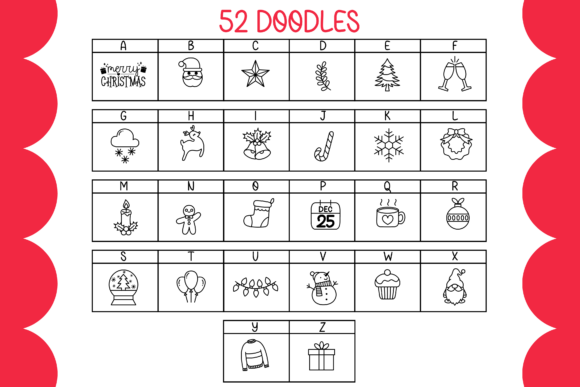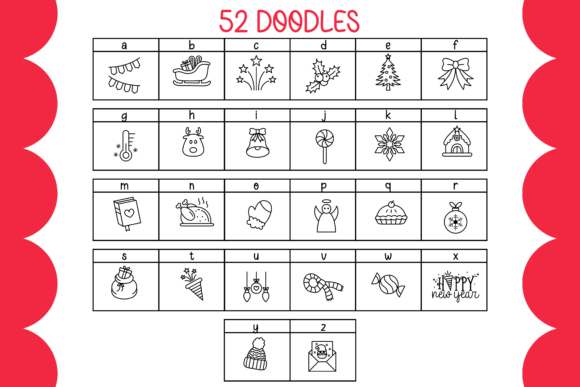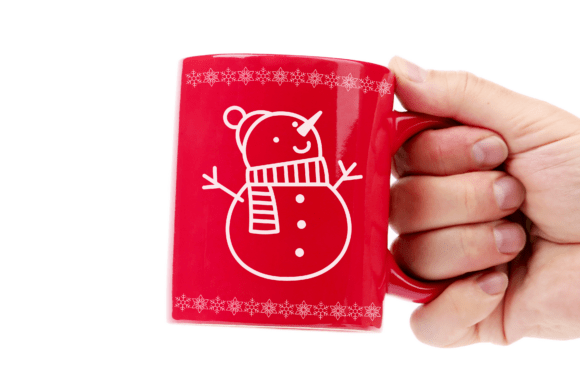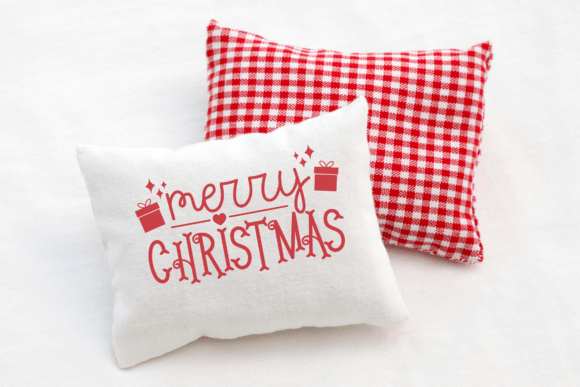
Introducing Christmas Parade Font: The Ultimate Festive Dingbat Font
Get ready to deck the halls and jingle those bells with Christmas Parade, a delightful dingbat font that’s bursting with Christmas cheer! This fun and festive font is packed with a wide range of Christmas-themed icons that will bring your holiday designs to life without using a single letter.
What’s Inside Christmas Parade Font?
Christmas Parade is a treasure trove of Christmas-themed icons, including:
- Cute candy canes to add a touch of sweetness to your designs
- Presents and gift boxes to make your creations feel like a holiday treat
- Ornaments and decorations to add a dash of festive flair
- Holiday-themed symbols, such as snowflakes, holly, and mistletoe
With Christmas Parade, you can create a parade of festive symbols that will delight and charm your holiday creations. Whether you’re designing greeting cards, gift tags, party invitations, or social media posts, this font is the perfect addition to your festive toolkit.
Christmas Parade is a dream come true for designers and crafters who love to get creative during the holiday season. This font is perfect for:
- Greeting cards: Add a personal touch to your holiday cards with Christmas Parade’s festive icons
- Gift tags: Make your gifts stand out with custom gift tags featuring Christmas Parade’s cute and colorful icons
- Party invitations: Create festive and fun party invitations that set the tone for a joyful holiday celebration
- Scrapbooking: Add a touch of holiday magic to your scrapbook pages with Christmas Parade’s delightful icons
- Social media posts: Spread holiday cheer on social media with festive graphics featuring Christmas Parade’s charming icons
How to Use Christmas Parade Font
Using Christmas Parade is as easy as typing! Simply type to create a parade of festive symbols that will add a playful and joyful touch to all your seasonal projects. With no letters to worry about, you can focus on getting creative and having fun with your designs.
Benefits of Using Christmas Parade Font
So why choose Christmas Parade for your holiday designs? Here are just a few benefits of using this fantastic font:
- Save time: With a wide range of pre-made icons, you can create festive designs in no time
- Easy to use: Simply type to create a parade of festive symbols – no complicated design skills required
- Customizable: Mix and match icons to create unique and personalized designs
- Scalable: Use Christmas Parade icons in any size or format, from small gift tags to large banners
Get Ready to Celebrate with Christmas Parade Font